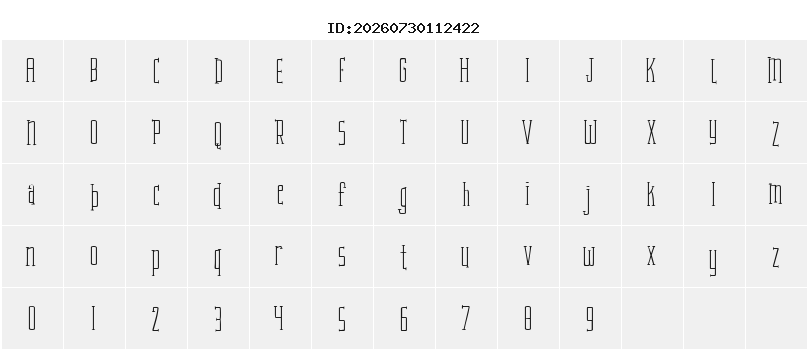
KG Attack of the Robots Preview
• Font Name: KG Attack of the Robots
• Full Font Name: KG Attack of the Robots
• Designer: Kimberly Geswein
About KG Attack of the Robots.ttf
KG Attack of the Robots.ttf is a modern, elegant sans-serif font designed for ultimate readability and visual harmony. Perfect for branding, headlines, web design, and print materials.